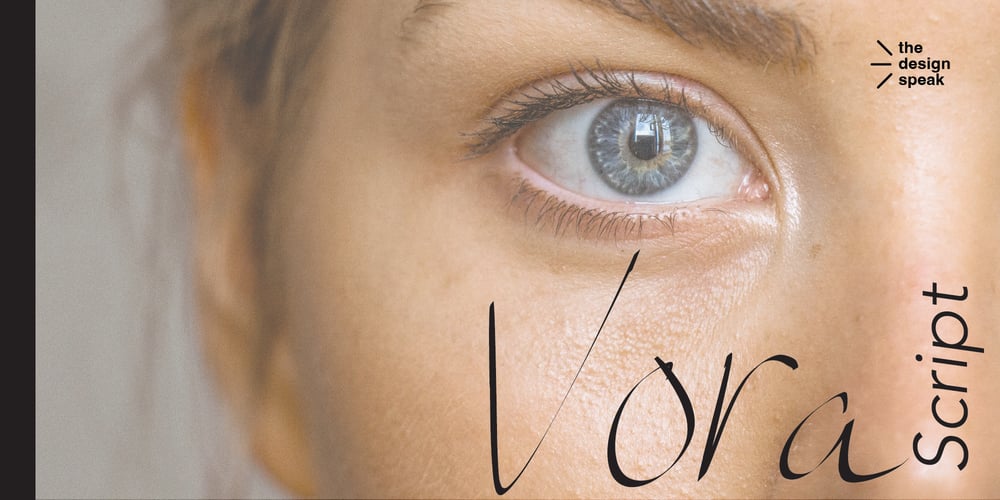
Vora Script Font Family was designed by Edward Marshall and published by The Design Speak. Vora Script contains 1 styles and family package options. Vora Script is an elegant, handwritten cursive typeface exuding sophistication and warmth. Its smooth, flowing lines and gentle curves make it the perfect choice for beauty and health product branding. The typeface combines modern grace with a personal touch, evoking trust and luxury while remaining approachable. With Vora Script, your brand will radiate charm, clarity, and care, appealing to consumers who value quality and elegance.